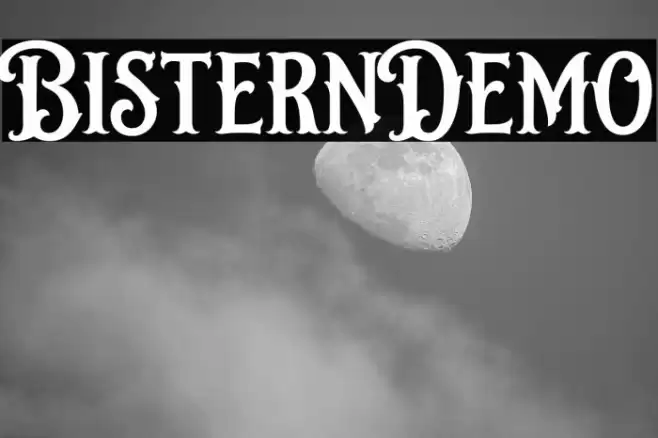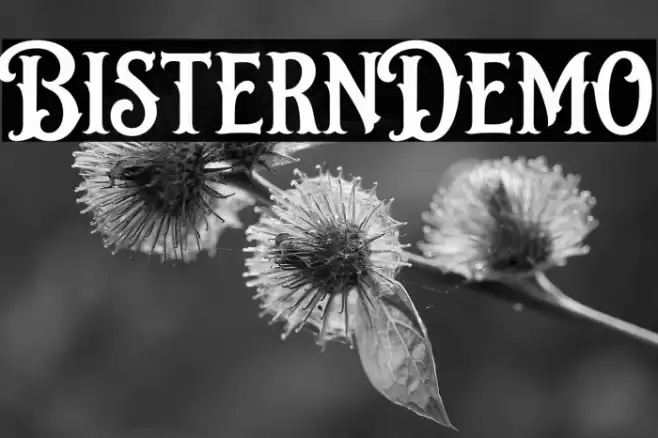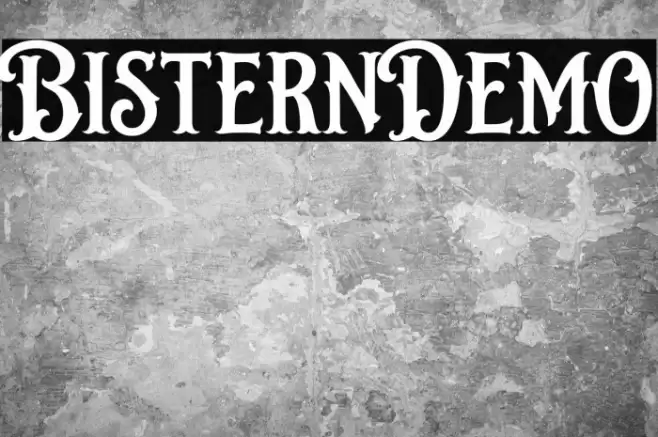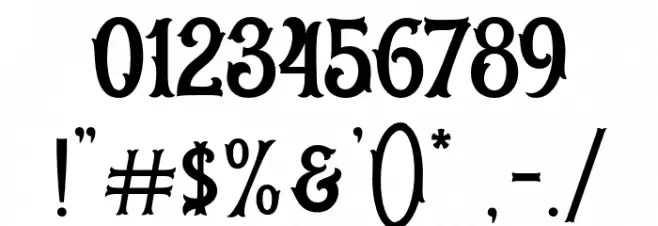
BisternDemo Font
BisternDemo Description
This font features a bold and decorative style with intricate detailing on each character. The uppercase letters are particularly ornate, with flourishes that give them a vintage and somewhat gothic appearance. The lowercase letters maintain the decorative theme, though they are slightly more restrained. The numerals are consistent with the overall style, featuring similar embellishments. Special characters are also included, each designed to match the elaborate aesthetic of the font. The overall impression is one of elegance and sophistication, making it suitable for projects that require a touch of classic or historical flair.
A bold, decorative font with vintage and gothic elements from Regular fonts.
- Proposed Projects: Ideal for branding, invitations, posters, and any project requiring a vintage or gothic touch.
- Overall Style: Vintage, Gothic